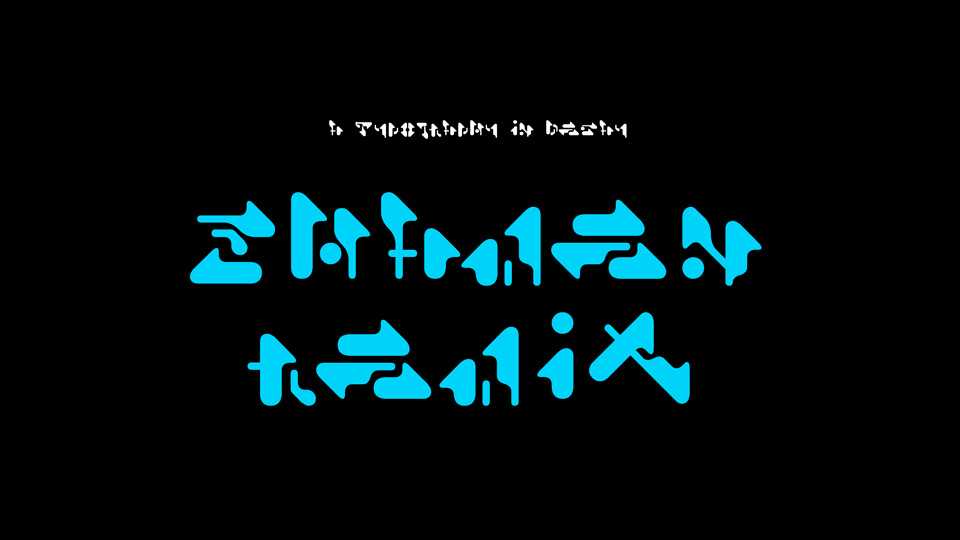
Download Shamen Remix font, a unique techy looking display typeface with futuristic shapes. Shamen Remix is perfect for posters, prints and modern atrtworks.
Designer: Matt Perkins